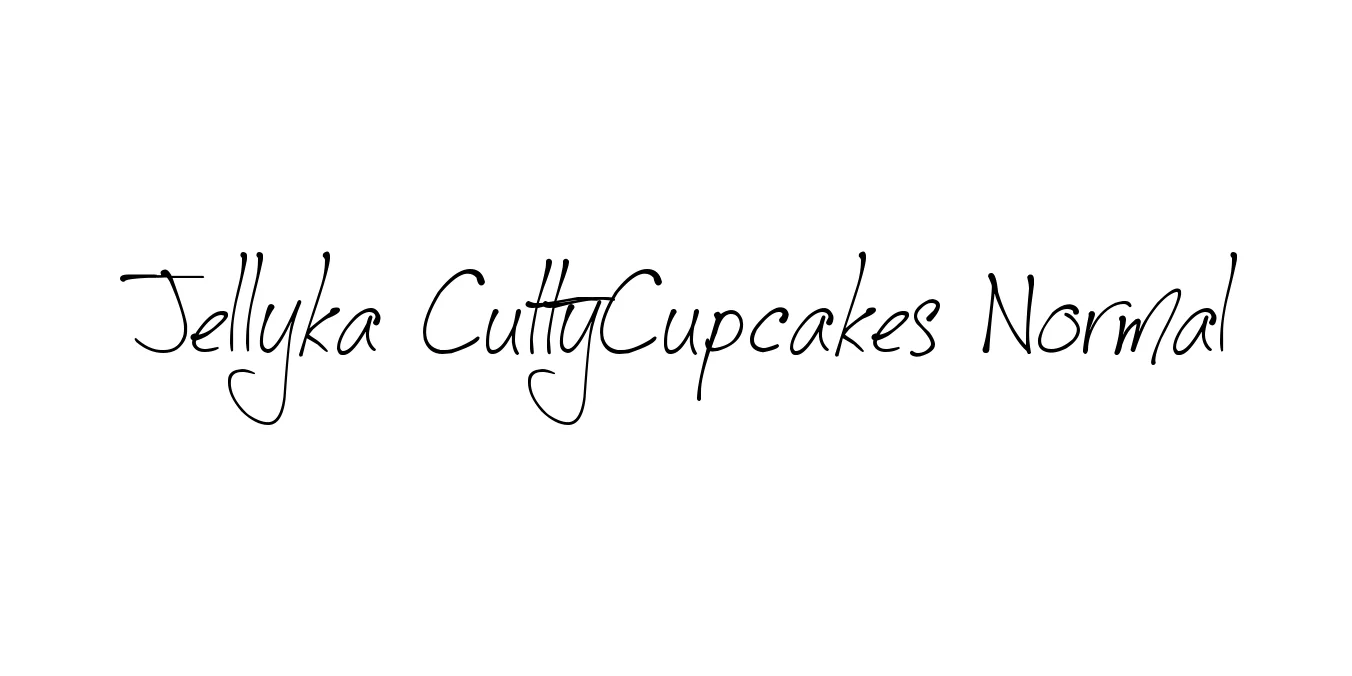
Jellyka CuttyCupcakes Normal
Designed by Jellyka Noldvari
Jellyka CuttyCupcakes Normal is a charming, hand-drawn script font created by the renowned designer Jellyka Noldvari. Known for her signature calligraphic style, this font captures a whimsical and artistic essence that feels both personal and sophisticated. The typeface features fluid, sweeping strokes and intricate loops that mimic authentic handwriting, making it a favorite among designers who want to avoid the rigidity of traditional digital fonts.
The font is particularly noted for its organic curves and feminine aesthetic, which lends itself beautifully to creative storytelling. Whether used for branding or editorial layouts, Jellyka CuttyCupcakes maintains a sense of playfulness while remaining highly legible in its "Normal" weight. It has become a staple for projects requiring a touch of elegance, ranging from high-end event stationery to artistic blog headers.
Jellyka CuttyCupcakes Normal Best Uses
Perfect for creating romantic and personalized stationery for special events.
Ideal for boutique logos, beauty products, and creative entrepreneur identities.
Excellent for overlays on photography, Instagram quotes, and lifestyle graphics.
Adds a handwritten, intimate feel to magazine headers and book covers.